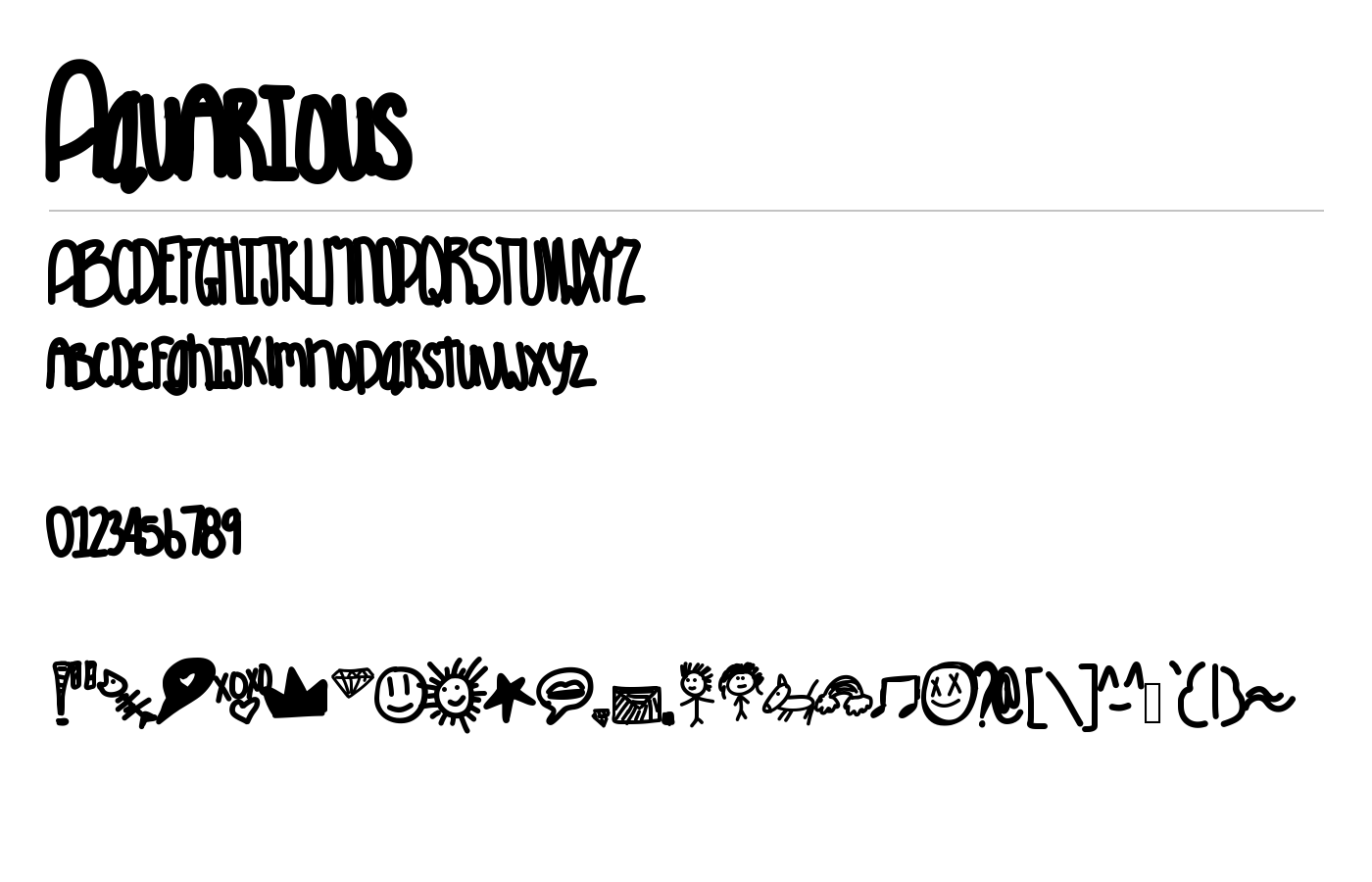
Aquarious is a playful, hand-drawn sans serif font that brings a casual and friendly vibe with its irregular, bold stroke style and tall, narrow letterforms. Its lively character shapes and quirky symbols make it ideal for informal designs such as children’s books, fun branding, or creative posters where a whimsical and approachable tone is desired. This font works best in headlines or display use where its unique personality can shine and add a hand-crafted feel.
Aquarious Font
About Aquarious Font